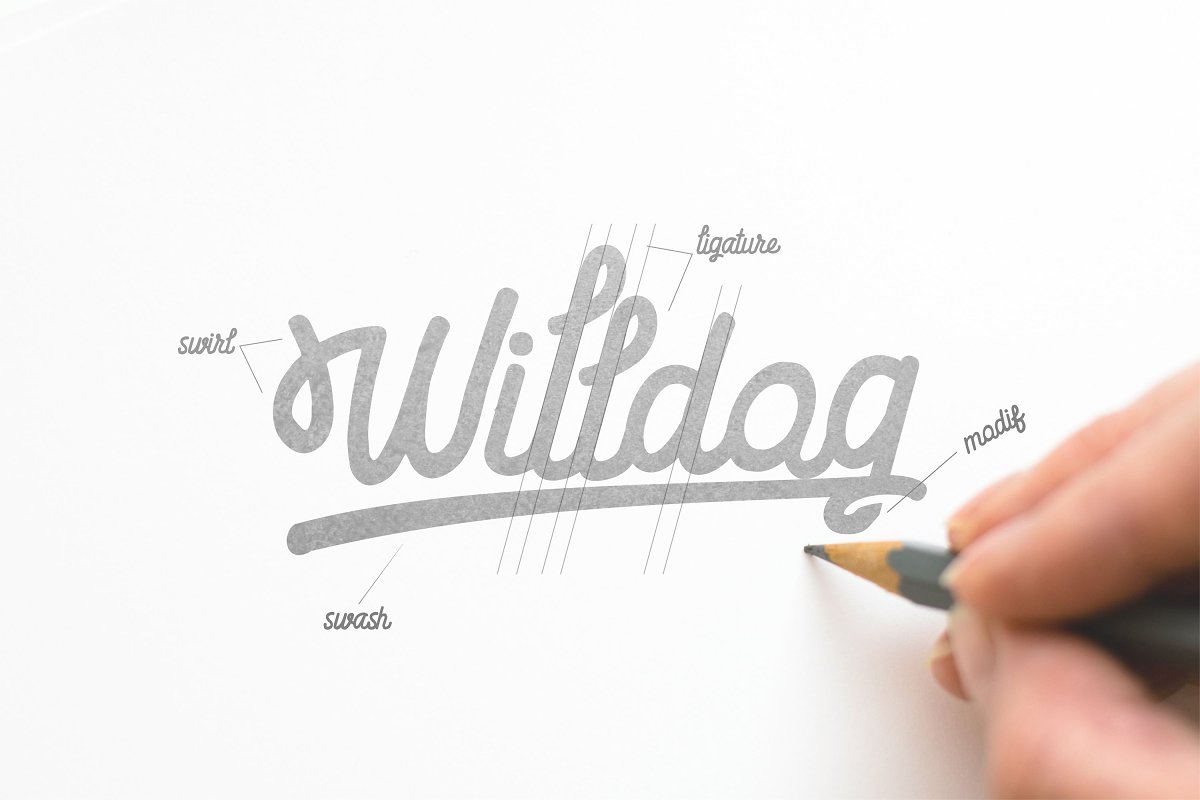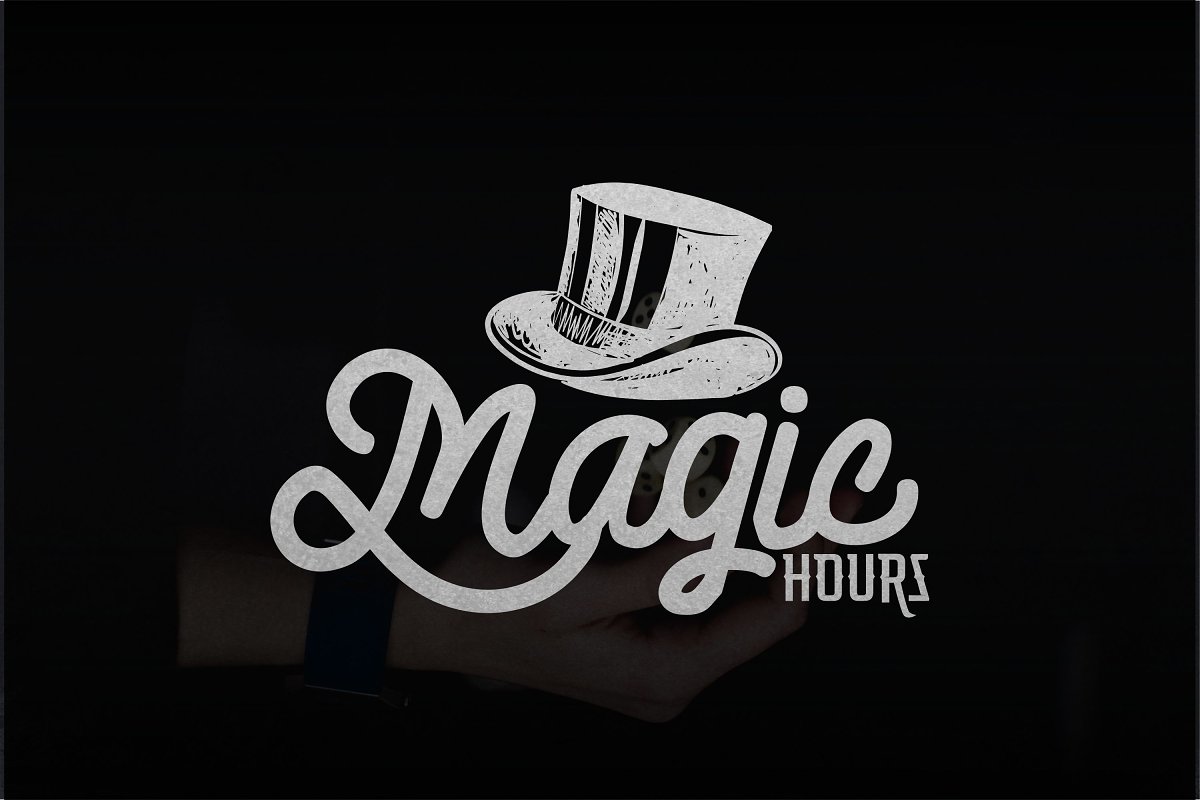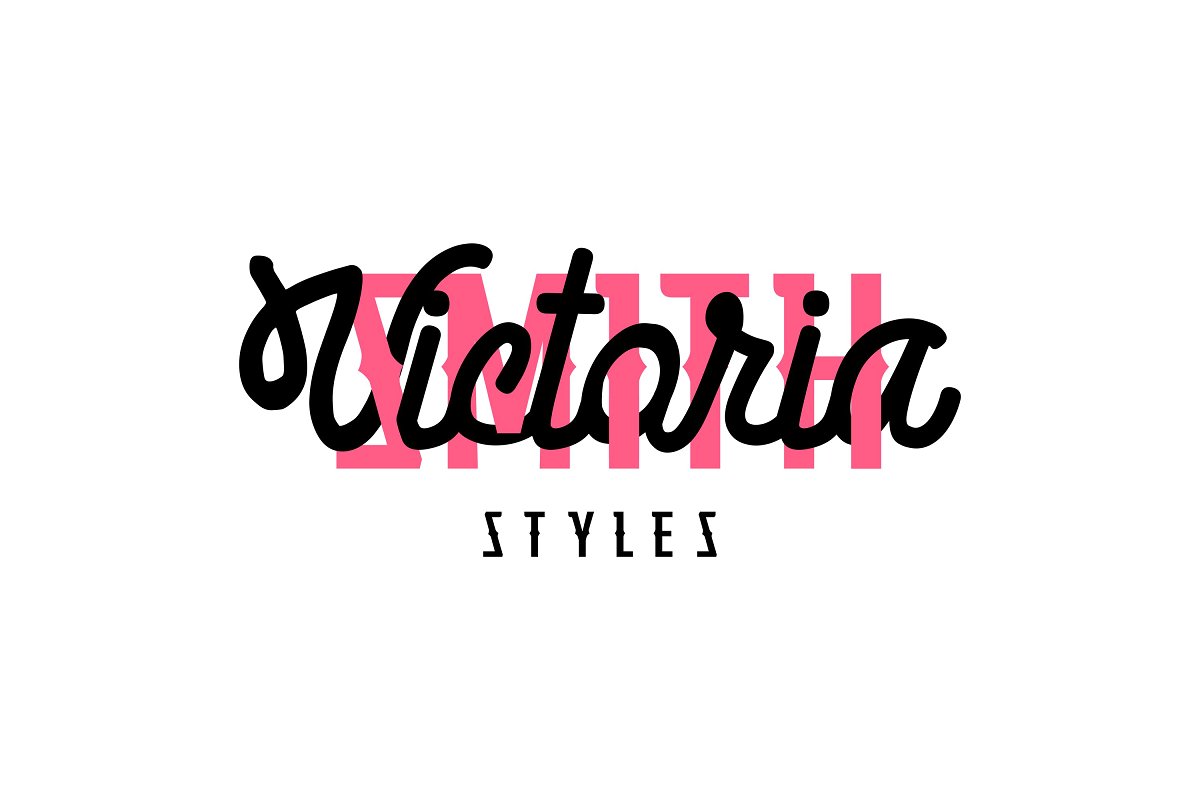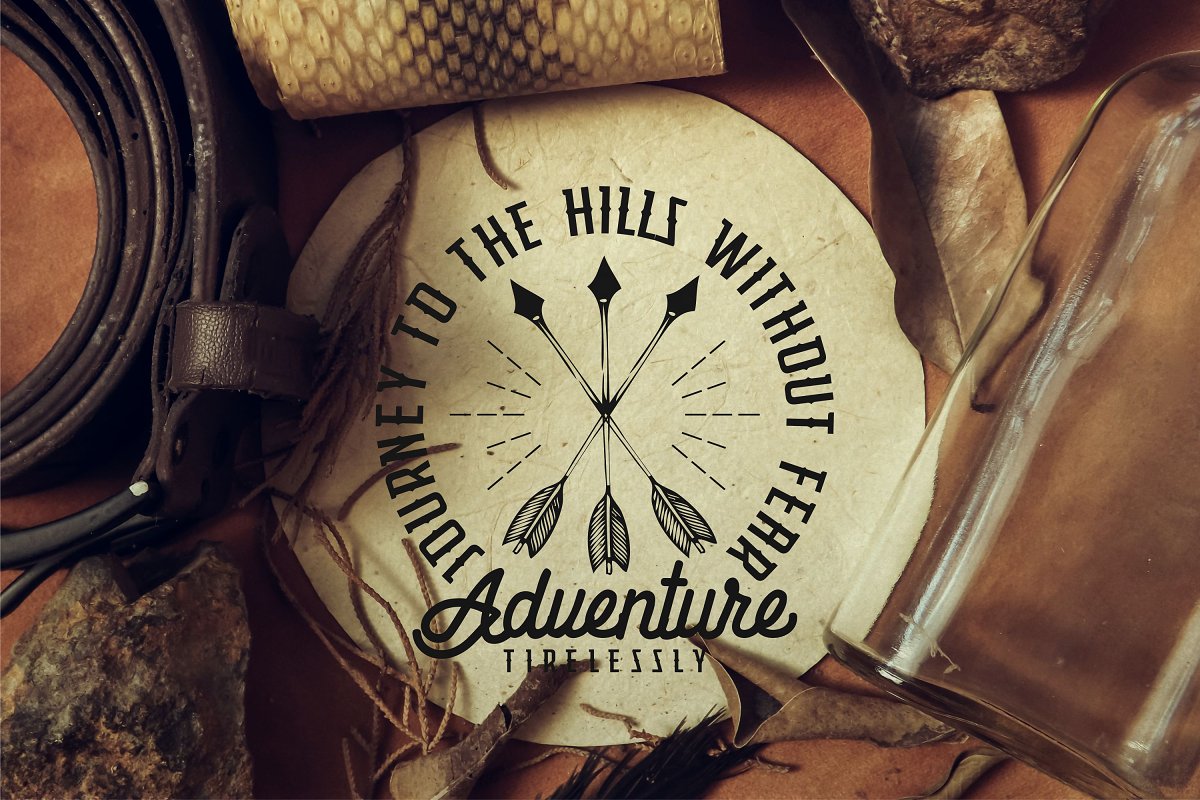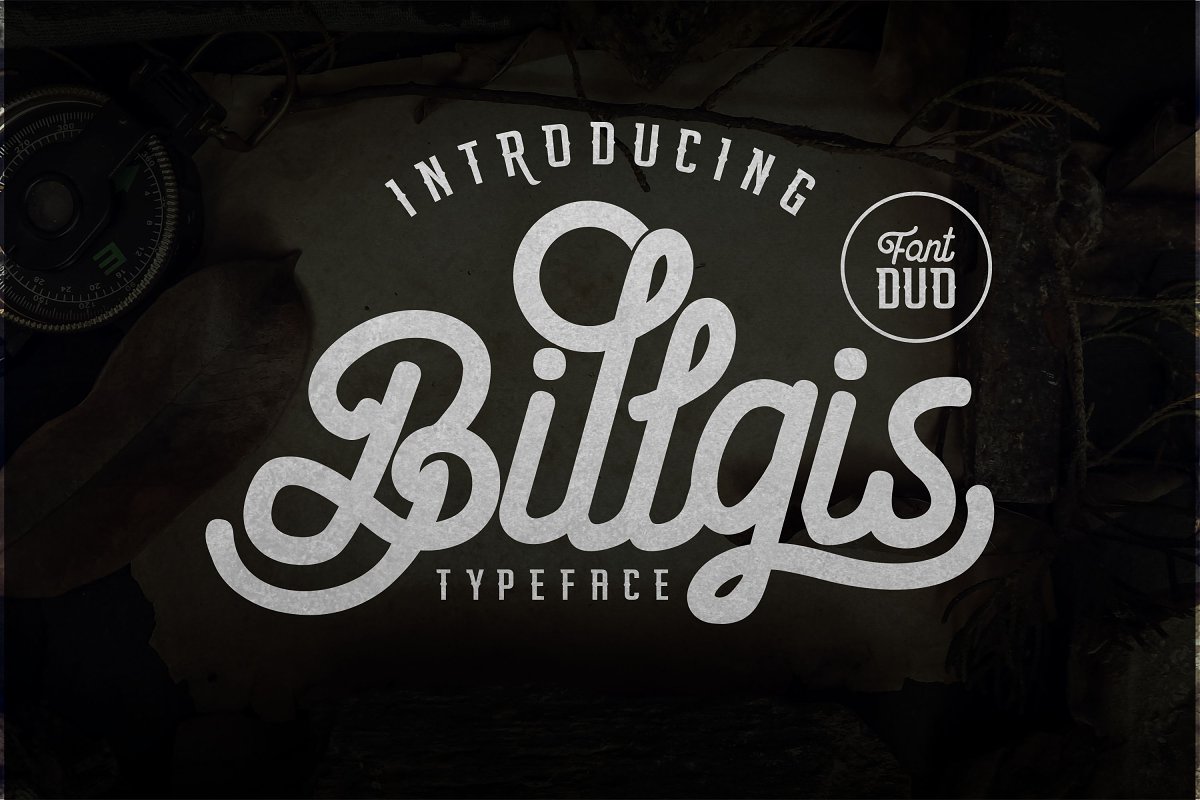
Billgis Font Duo
Hi Font Lovers! Presenting Billgis Typeface. The Billgis is a striking font duo. Its handwritten style will give your design a natural feel. Perfect for many different project such as Photography, logos & branding, invitation, stationery, wedding designs, social media posts, advertisements, product packaging, product designs, label, ,watermark, special events or anything.